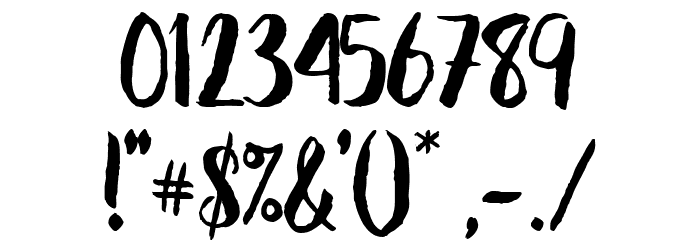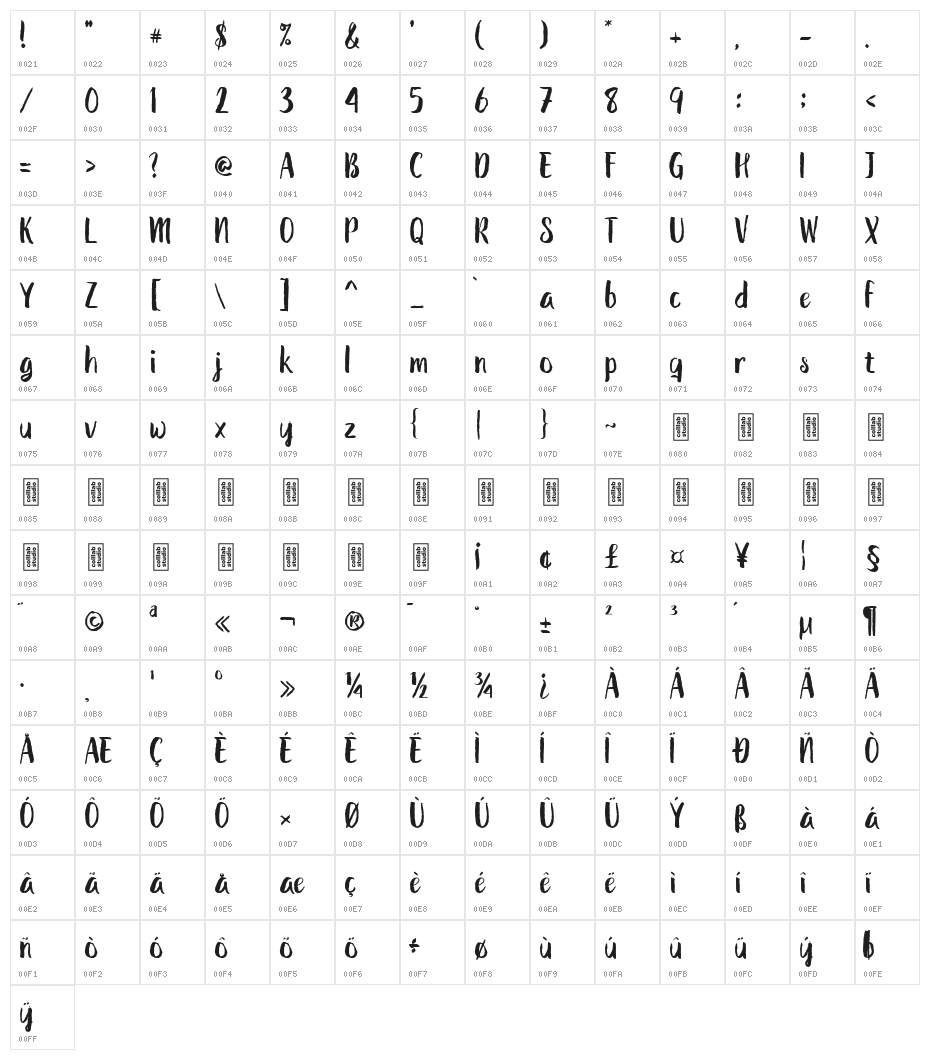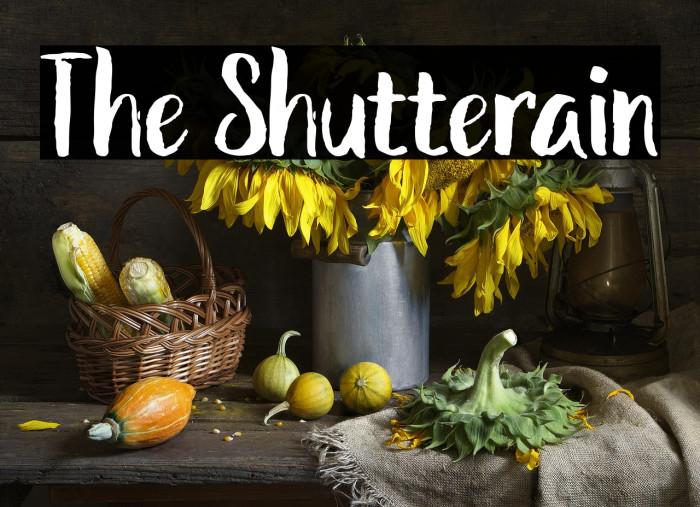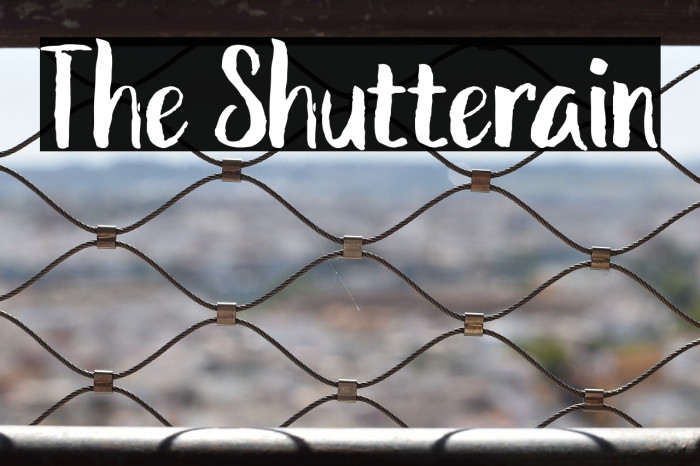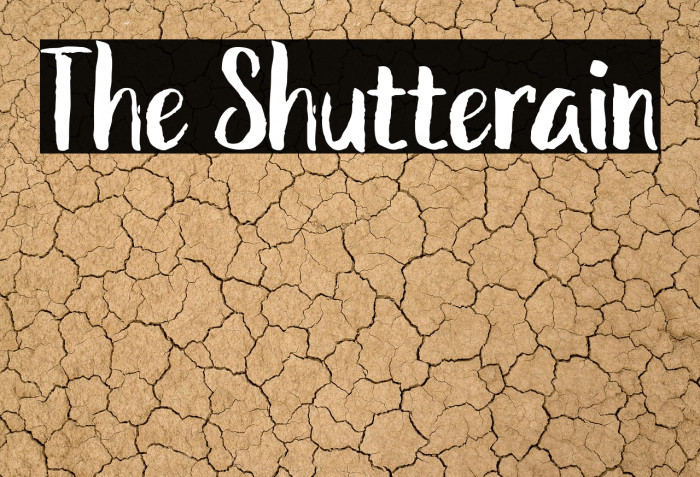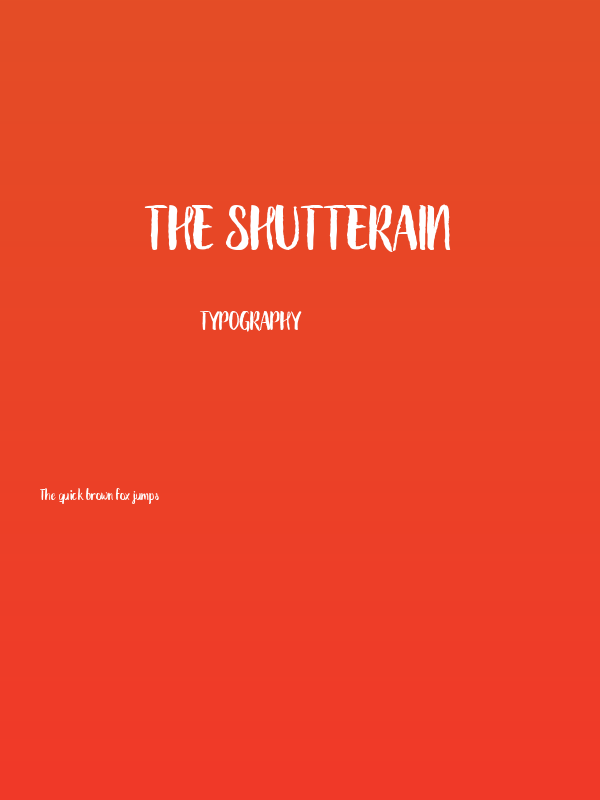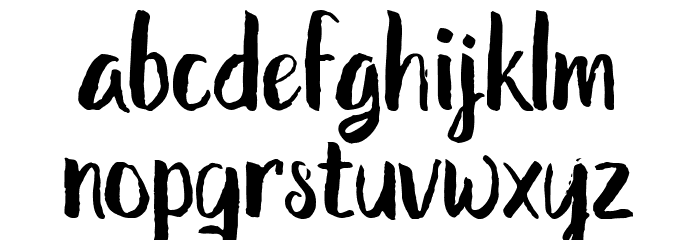
The Shutterain Font
The Shutterain Description
This font features a bold and expressive handwritten style, characterized by its brush-like strokes and organic flow. The uppercase letters are tall and slightly irregular, giving a dynamic and lively appearance. Lowercase letters maintain a consistent style with a playful touch, while numbers and special characters follow the same aesthetic, ensuring uniformity across all glyphs. The font's overall appearance is both artistic and approachable, making it suitable for creative and informal applications.
| Proposed Projects | Ideal for branding, posters, invitations, and social media graphics where a personal and artistic touch is desired. |